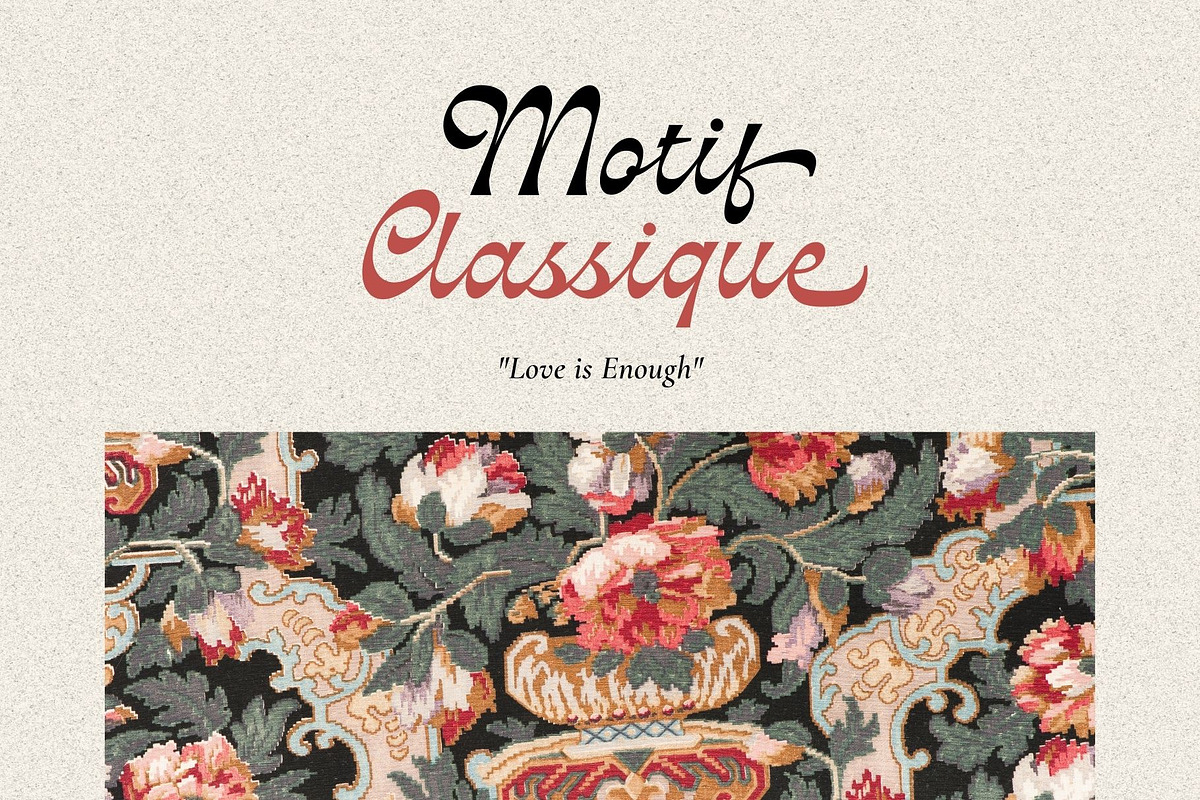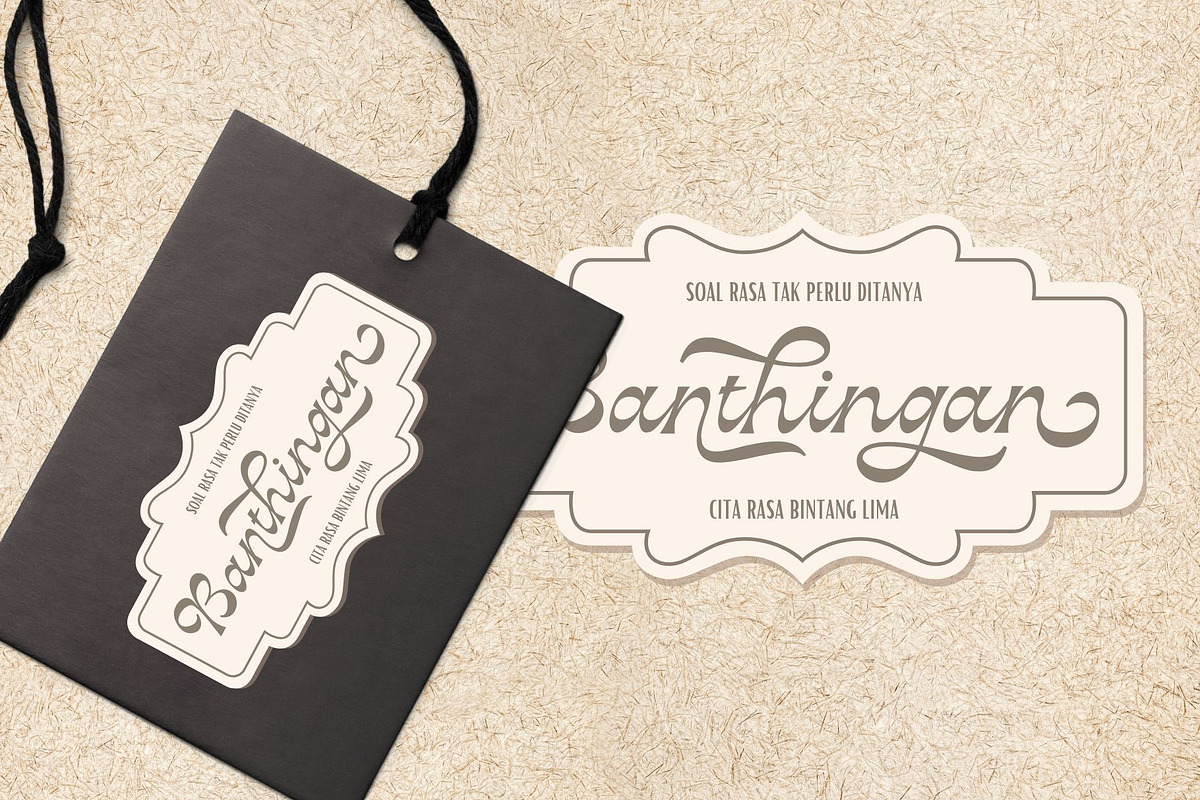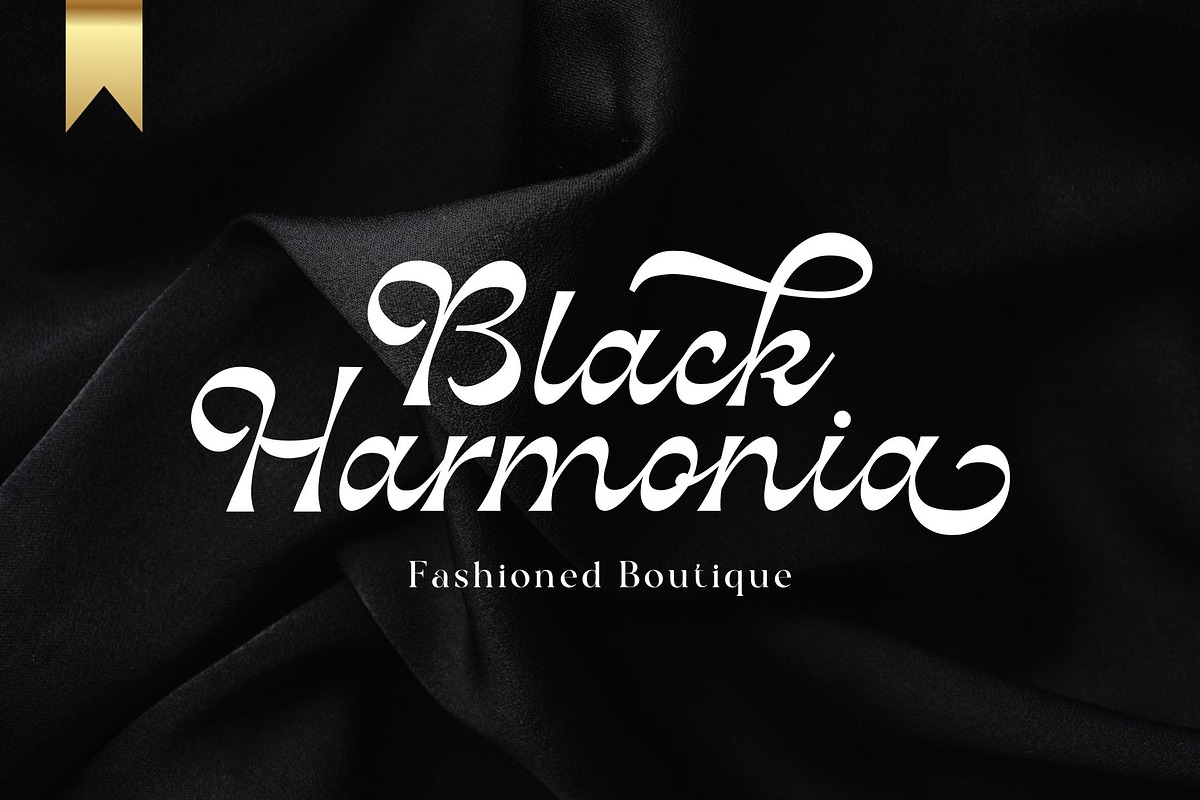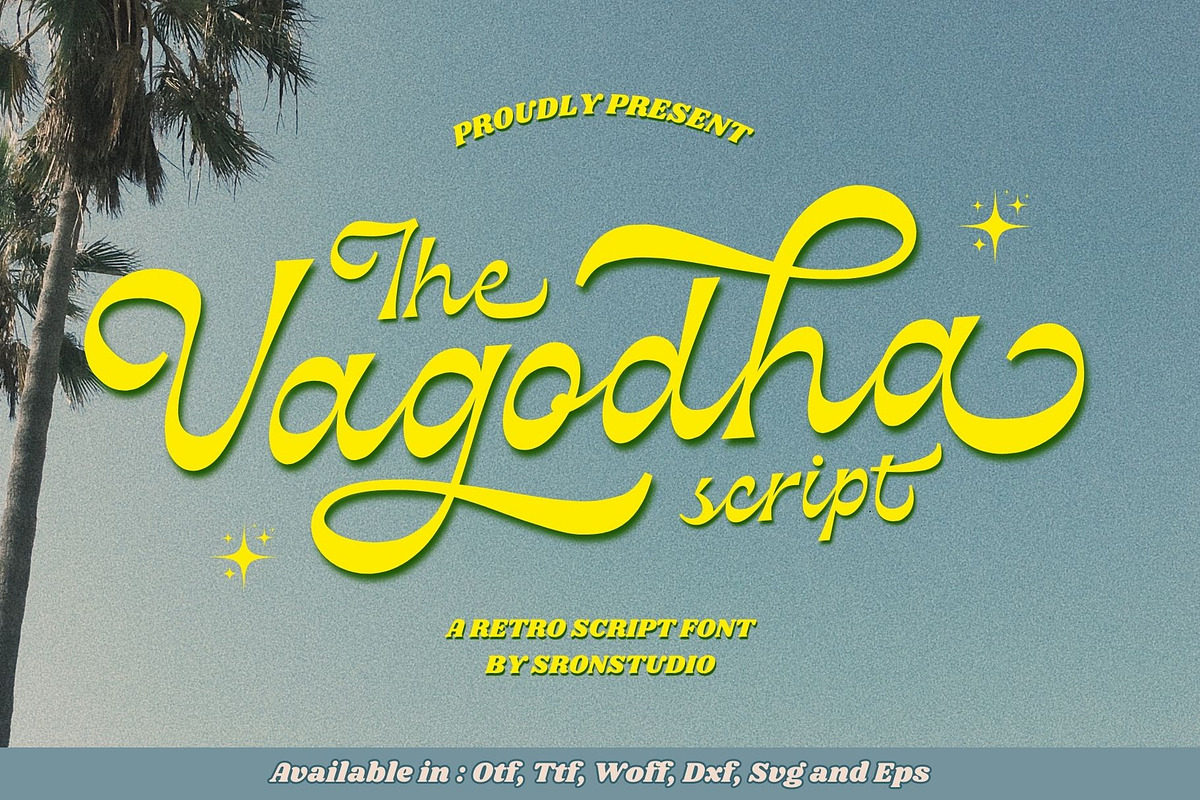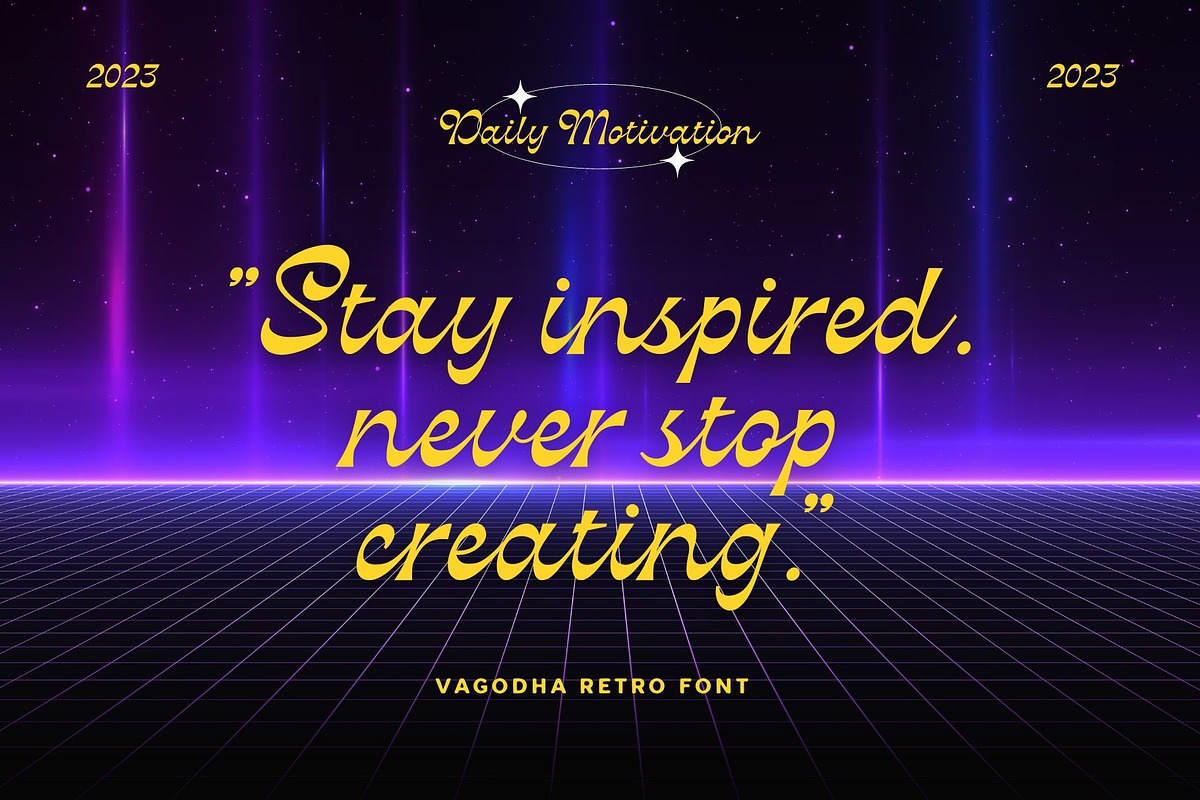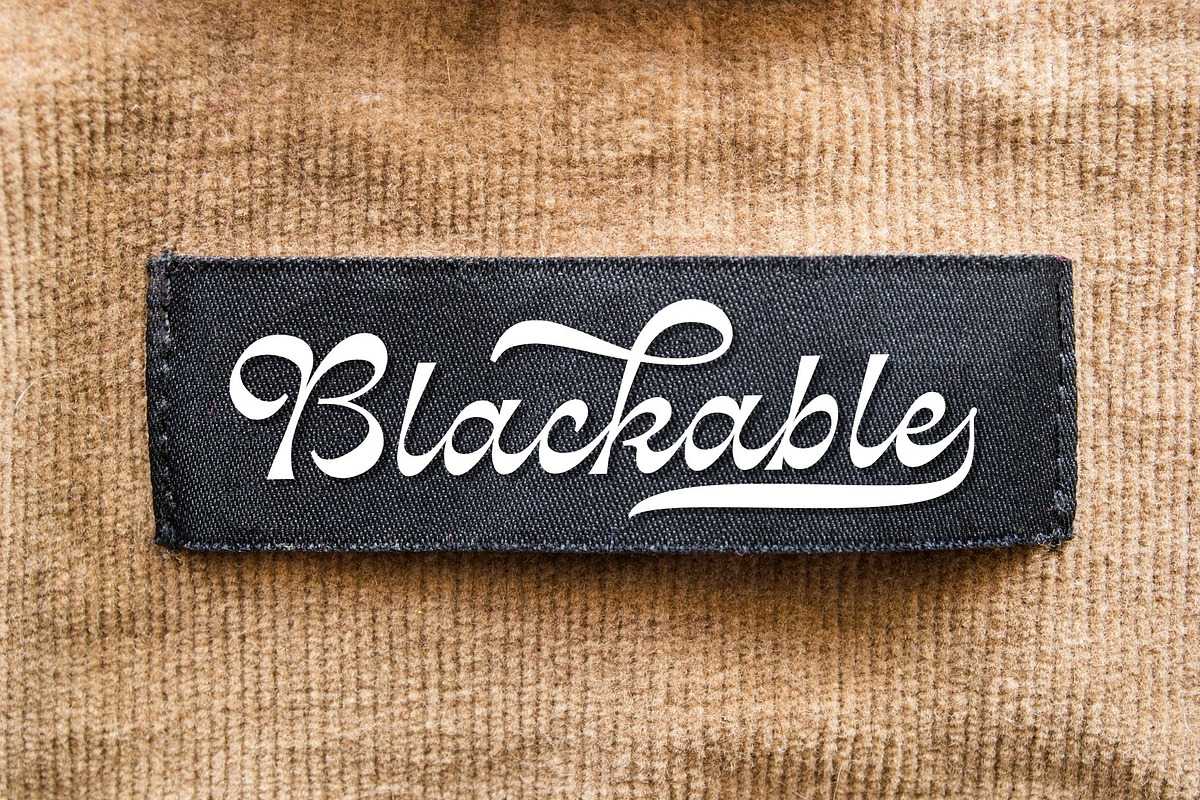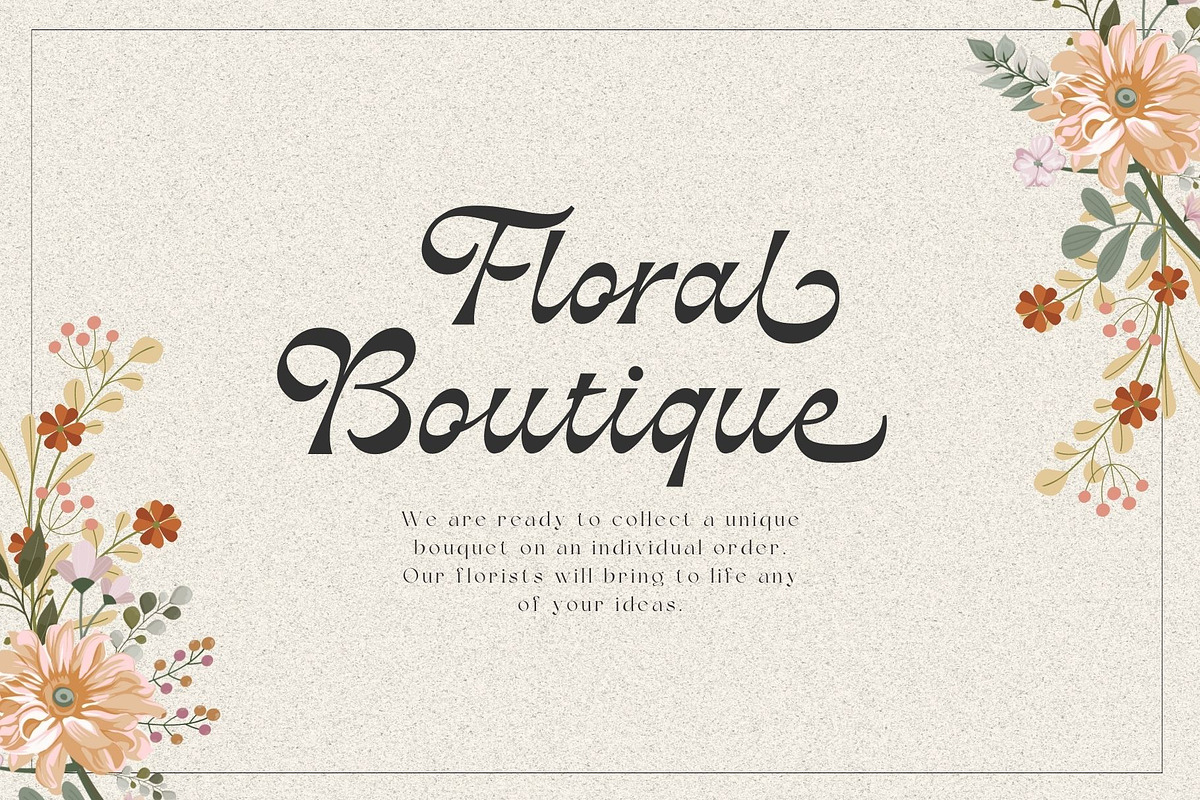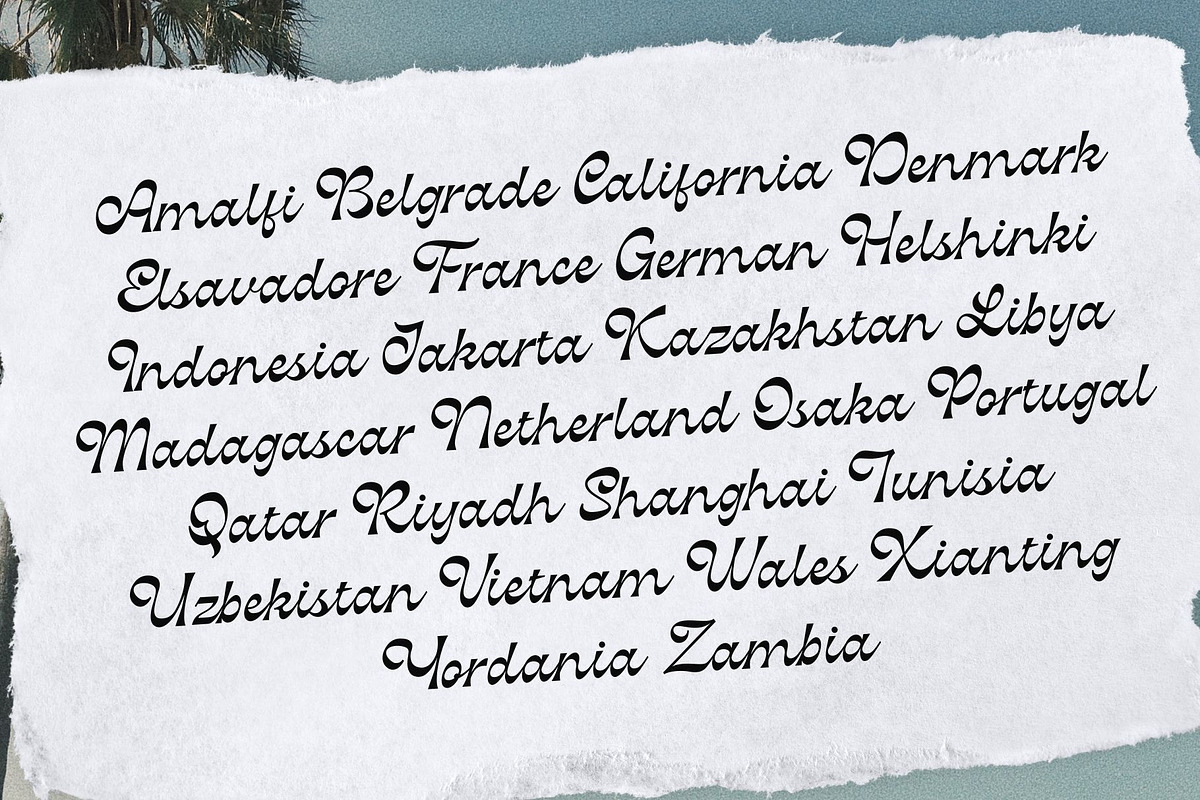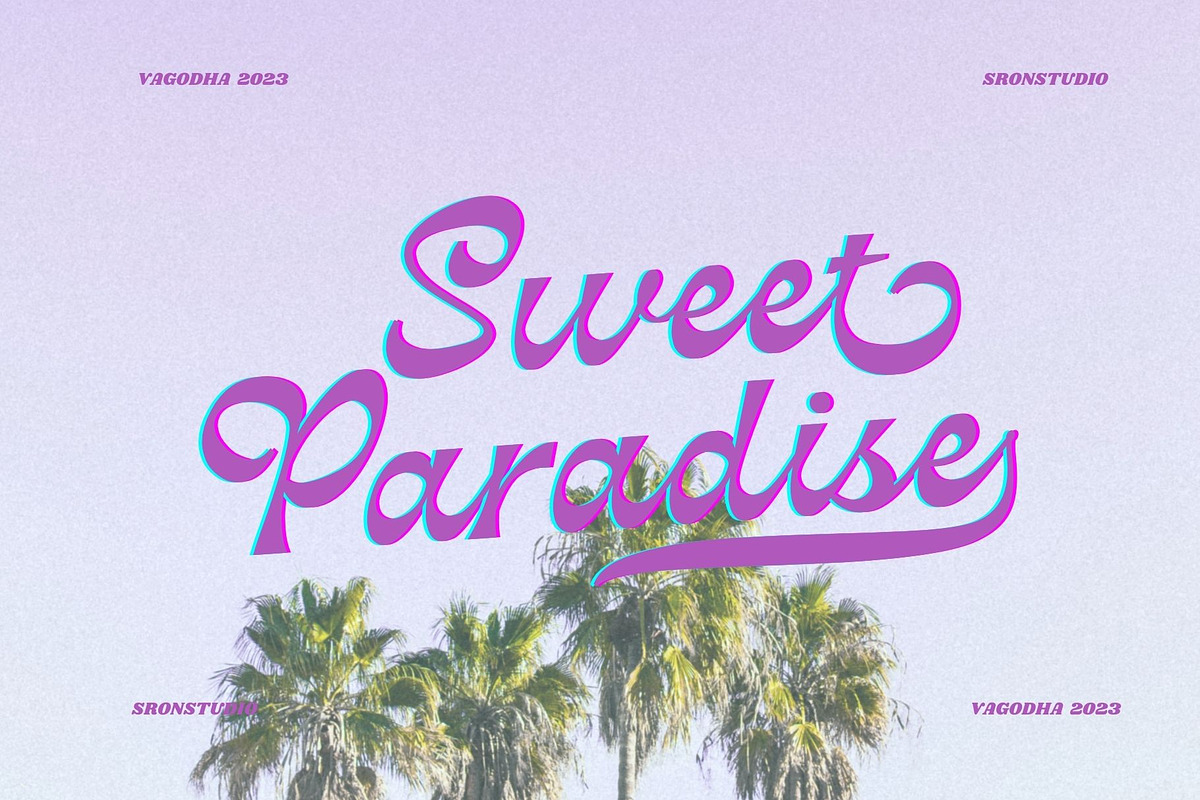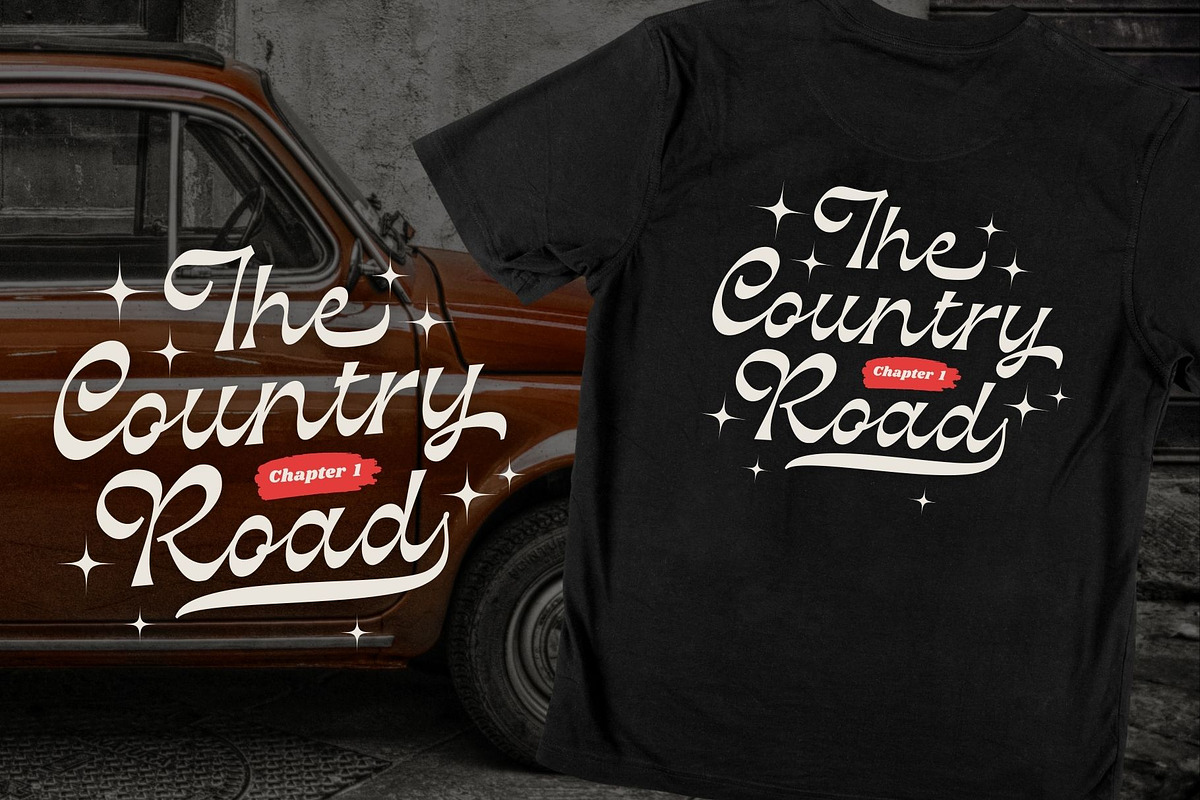
Vagodha - Retro Script
Introducing "Vagodha" a captivating retro reverse contrast script font that brings a unique and striking visual appeal to your designs. Inspired by vintage aesthetics, this font features an intriguing twist with its reverse contrast, where the thin strokes are replaced by thick ones and vice versa. The result is a font that effortlessly stands out and grabs attention. With its bold and dramatic letterforms, "Vagodha" adds a touch of retro charm and edginess to your projects. Whether you're designing logos, headlines, posters, or any creative work that calls for a standout retro style, this font will make a bold statement.
- Uppercase and lowercase letters
- Multilingual, numerals, and punctuation